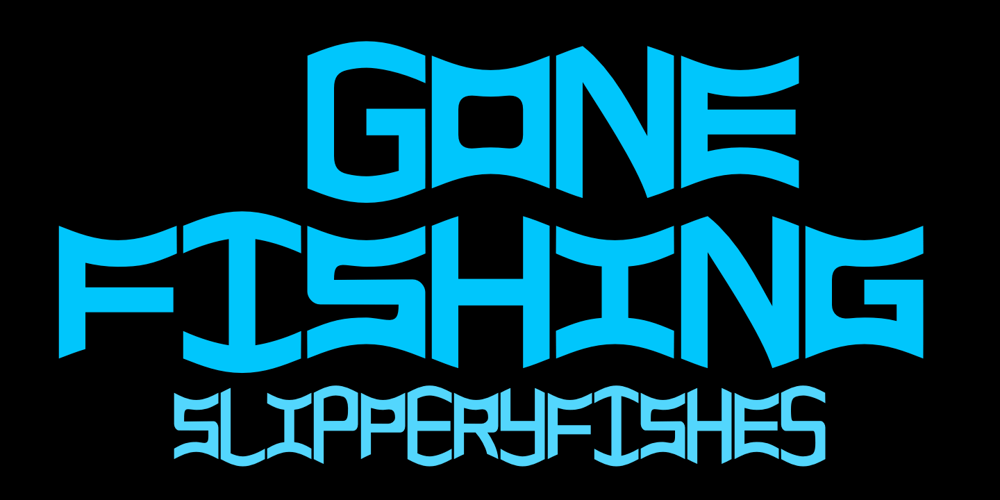
Slippery Fishes Font Family was designed by Robert Schenk and published by Ingrimayne Type. Slippery Fishes contains 4 styles and family package options. SlipperyFishes alternates two letter sets to create an undulating line of text that reminds me of a slippery fish. It resembles Undulate, another typeface that uses the OpenType feature of contextual alternatives (calt) to alternate letters, but while the tops and bottoms of letters in Undulate trace parallel paths, the tops and bottoms of letters in SlipperyFishes trace reflecting paths.SlipperyFishes is monospaced with tight letter spacing to accentuate the ripple pattern. The family has four members: regular, outlined, condensed, and condensed outlined. The outline styles that can be used in a layer with their base styles to add color.Slippery fishes is bizarre and weird and can be used in places where those attributes will create attention-grabbing lettering.